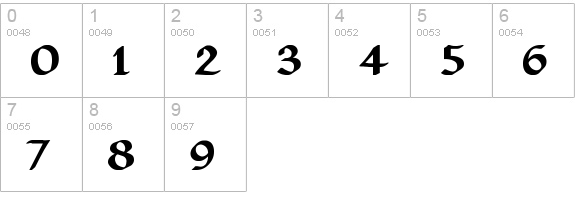
Viking-Normal Bold Font Details
Viking-Normal Bold is the standard, neutral variant in the Viking typeface family \xE2\x80\x94 well suited to general body text, paragraphs, and standard typographic work.
Viking-Normal Bold font is a powerful and captivating typeface that captures the essence of the legendary Vikings with its bold and striking design. This font exudes strength and courage, making it perfect for projects that demand attention and make a lasting impact. With its clean lines and confident strokes, Viking-Normal Bold font stands out from the crowd, commanding attention and leaving a lasting impression. Whether you're designing a logo, creating eye-catching headlines, or crafting a powerful poster, this font will bring your words to life with its strong and commanding presence. One of the best features of Viking-Normal Bold font is that it is available for free download at FontsMarket.com. This means that you can access and use this stunning font without any cost or restrictions. It's a fantastic opportunity to upgrade your design projects with a font that combines timeless elegance with a touch of Viking fierceness. The versatility of Viking-Normal Bold font is another reason why it has gained popularity among designers and creatives. It works seamlessly across various mediums, from print to digital, ensuring that your message is delivered with the utmost impact and clarity. Its bold and assertive nature allows it to shine in both large and small sizes, making it suitable for everything from banners and billboards to website headings and social media graphics. Whether you're a professional designer or a passionate hobbyist, Viking-Normal Bold font is a must-have in your font library. Its unique combination of strength, elegance, and free availability make it an invaluable tool for any project that requires a bold and captivating typeface. Download it today at FontsMarket.com and unleash the power of the Vikings in your designs.